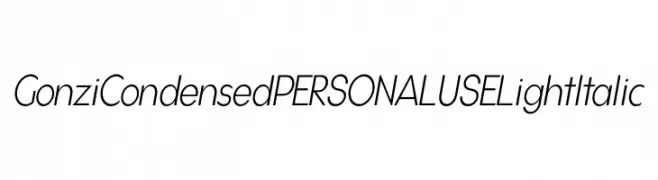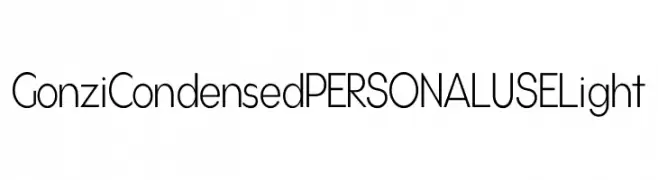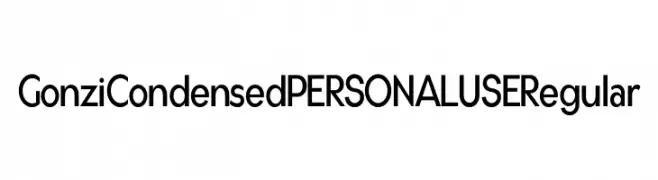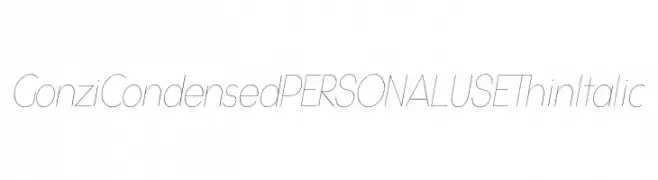
A bold, condensed font with uniform strokes and a modern, impactful style.
A modern, condensed font with a clean, minimalistic design.
A sleek, modern, condensed italic font with thin strokes.
A sleek, modern, condensed, light italic font with low contrast.
A bold, italic, and condensed font with a modern and dynamic style.
A modern, condensed sans-serif font with bold, uniform strokes.
A bold, condensed font with a modern and impactful style.
A modern, condensed italic font with a sleek and professional appearance.